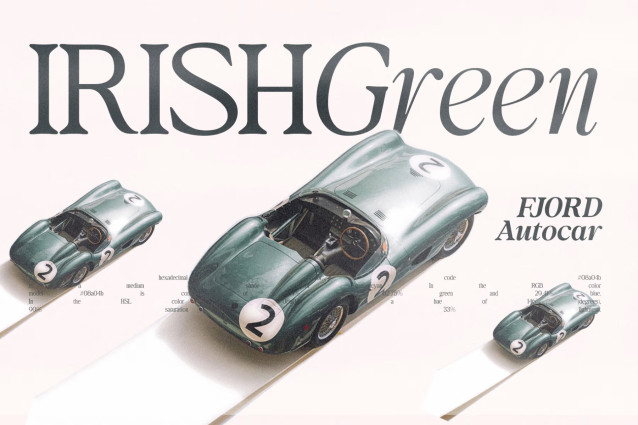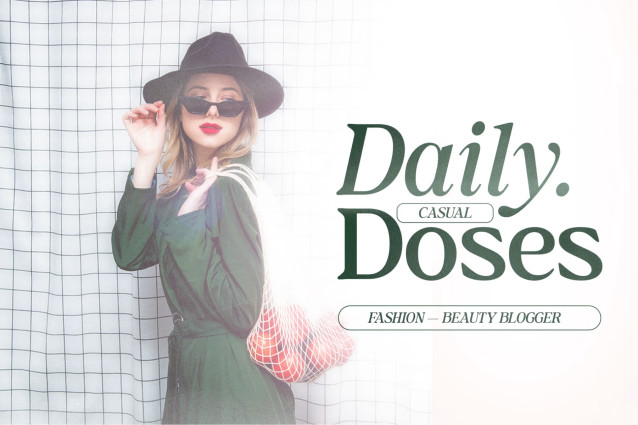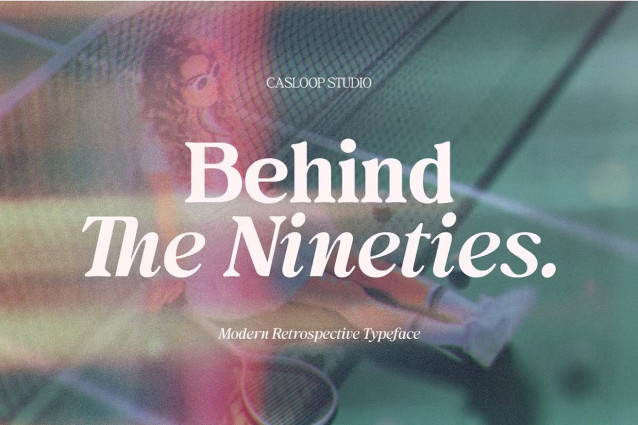
Behind The Nineties 12 Fonts
Behind The Nineties a retrospective font family with a laid-back character. Radius and blunt serifs add to the retro feel, with almost no sharp corners—similar to modern typefaces. This font offers 6 styles, from regular to black, each in upright and italic styles with a 12-degree slope, providing flexibility for mixing and matching.
Technically integrated with massive multi-Latin characters, Behind The Nineties is reinforced with ligatures for functionality. It remains highly versatile for editorial projects.
Behind The Nineties, a timeless Serif font, captures the essence of the 70s 80s 90s with a delicate and nostalgic charm. Adding a boho, stylish, and old-fashioned flair, this font is perfect for websites, packaging, logos, and posters, ensuring your projects stand out with a unique touch.
Experience the superior features of Behind The Nineties, meticulously crafted for chill and sexy aesthetics. Versatile from elegant branding to laid-back editorial layouts, this font family offers true italics and flirtatious options for cool and hip designs. A classy and iconic choice for chic blogs or poetic magazines.